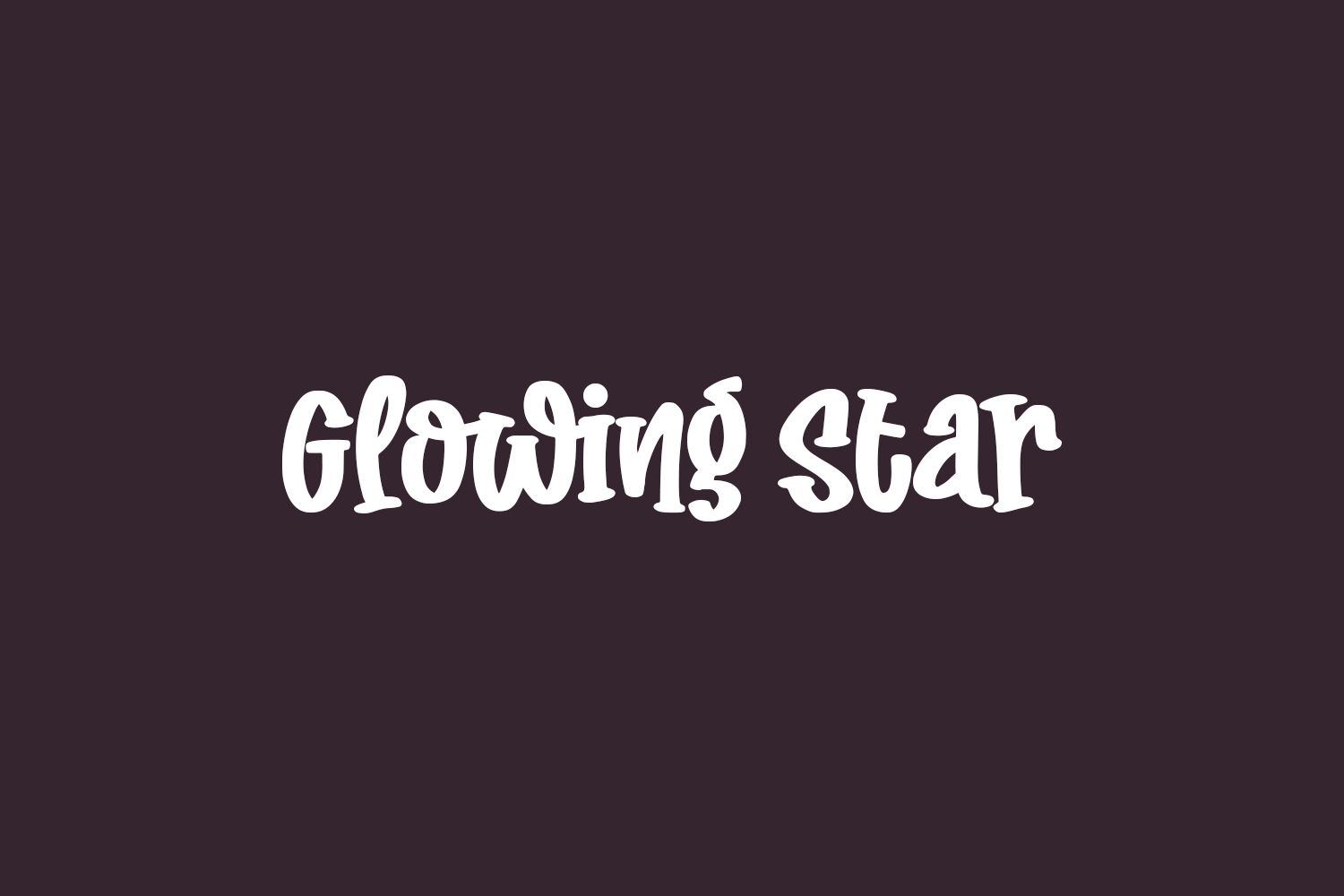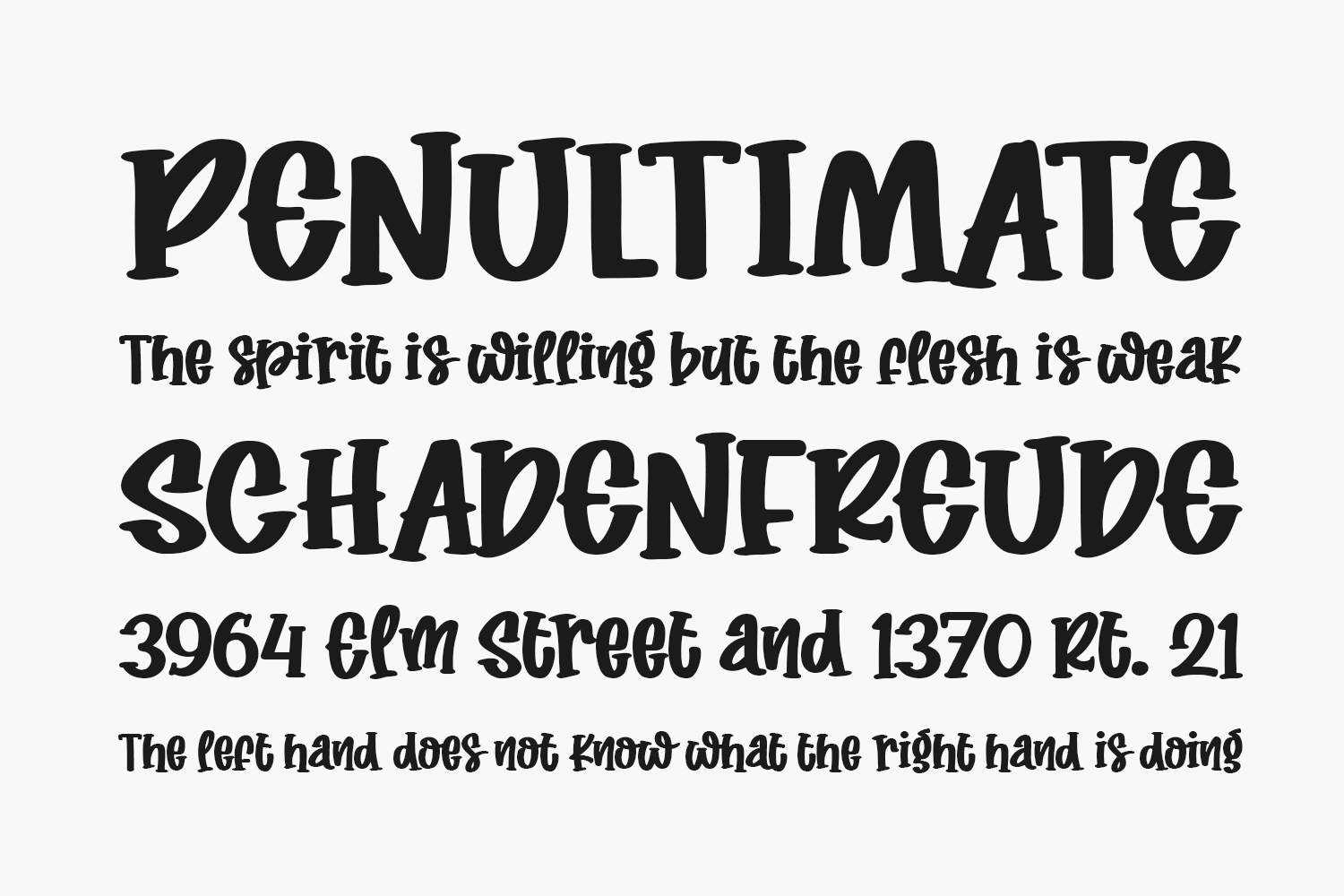
Glowing Star Free Font Family is a cute and quirky handwritten font, created to brighten up each of your projects. Its playful and friendly style makes it fit for a wide variety of designs. Glowing Star Free Font was designed by Subectype & Orenari and is free for personal use only. Please purchase the full version for commercial use.
Glowing Star Regular The quick brown fox jumps over the lazy dog
Glowing Star Cute The quick brown fox jumps over the lazy dog